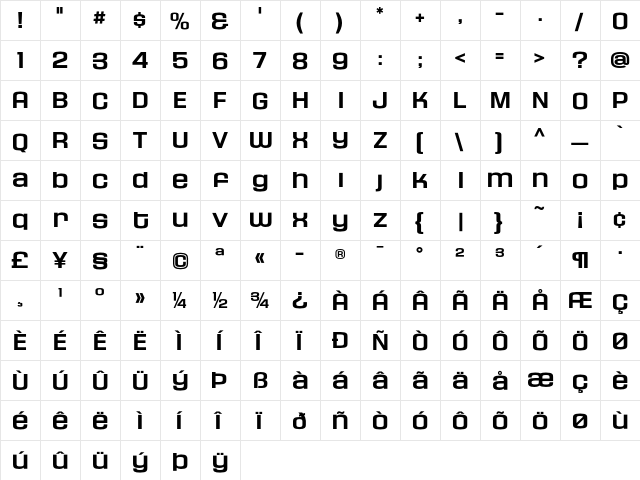
HouseGothicHG23Ext BOLD3
| Designer | Allen Mercer/Tal Leming |
Design Context for HouseGothicHG23Ext Typeface
HouseGothicHG23Ext takes a clean, functional approach — its unadorned letterforms prioritise legibility and work reliably across screen and print environments. Its bold stroke weight gives it real presence on the page.
Well-suited to navigation labels, product packaging, and anywhere legibility at scale is essential.
Font Pairing: Use HouseGothicHG23Ext for headlines alongside a lighter-weight sans or serif for body copy to establish clear visual hierarchy.
Pro Tip: Use HouseGothicHG23Ext for UI labels, navigation, and short-form body copy where clean legibility is the priority.